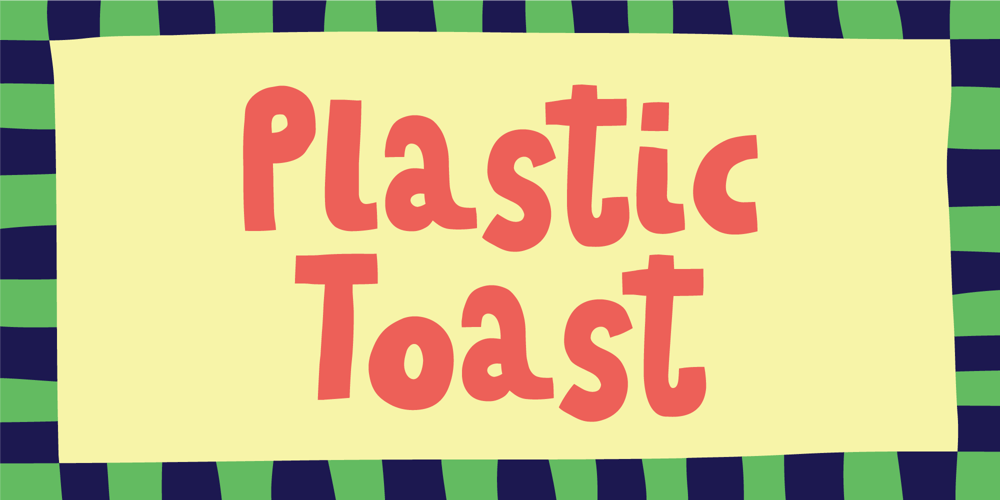
Plastic Toast
Plastic Toast font
Plastic Toast Font Family was designed by Jakob Fischer and published by PizzaDude.dk. Plastic Toast contains 2 styles and family package options. We all know that feeling when your legs can’t stand still. Maybe you even clap your hands and shake your hips at the same time! You may even smile and feel a strange energy in your body, which just can’t stand still!This is what my font Plastic Toast is all about: dance. party, laughing and having a good time!